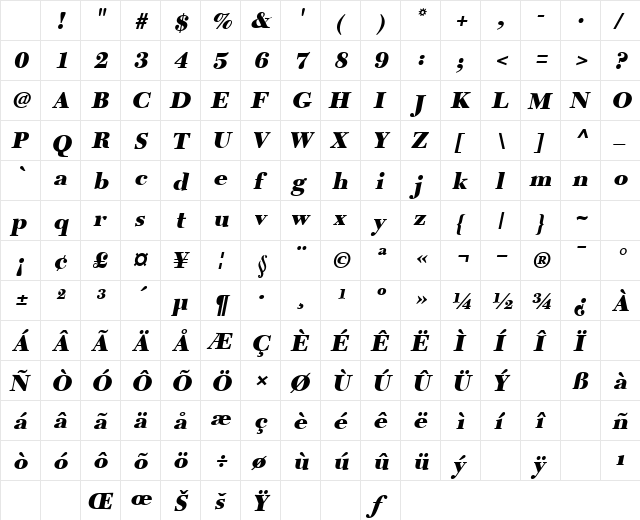
Complete EmoryBlack Oblique glyph index. Displaying only characters natively supported by EmoryBlack Oblique font.
EmoryBlack is a composed and adaptable typeface that performs quietly and consistently across a wide range of design contexts. The slanted form adds forward momentum and visual energy.
Pro Tip: Use EmoryBlack for emphasis, pull quotes, and subheadings where its slanted energy can add rhythm to the layout.